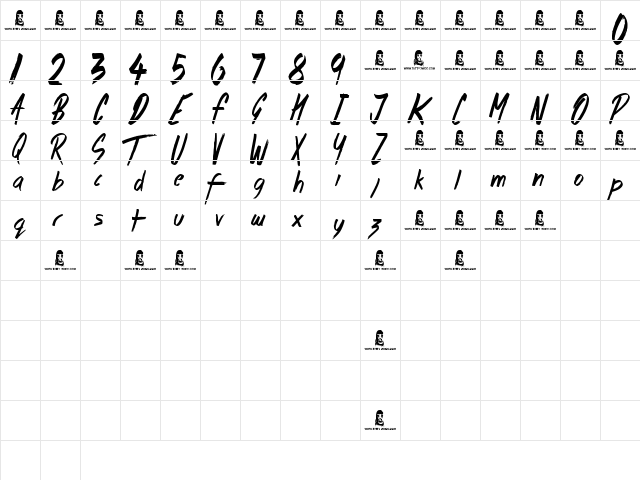
Morning Star Regular
Design Context for Morning Star Typeface
Morning Star is a composed and adaptable typeface that performs quietly and consistently across a wide range of design contexts.